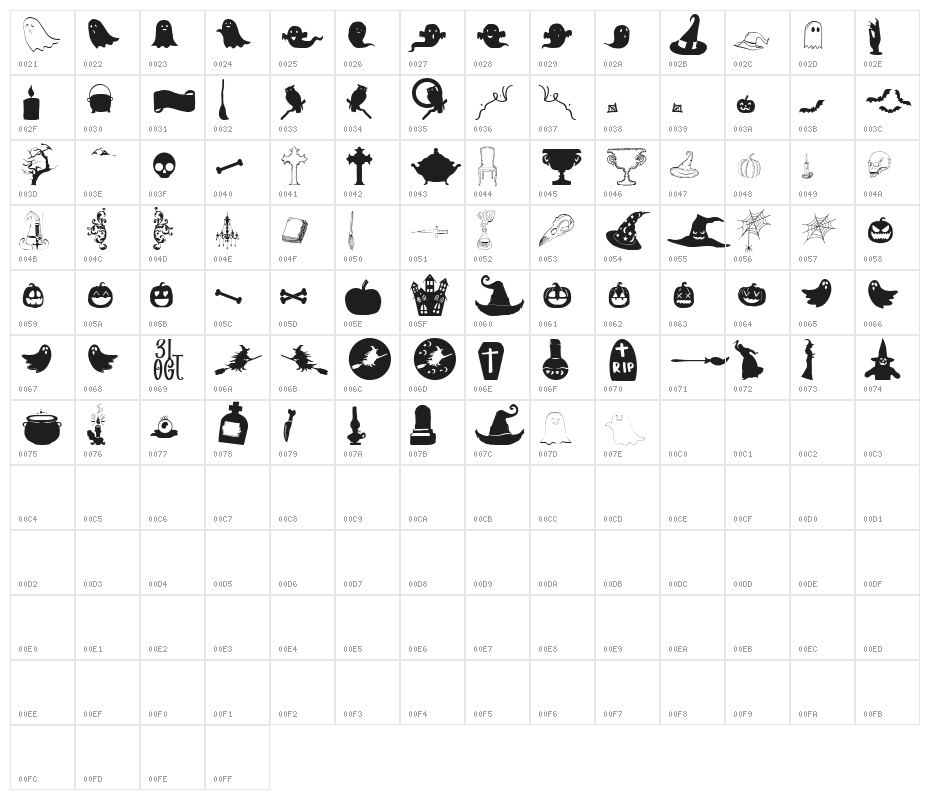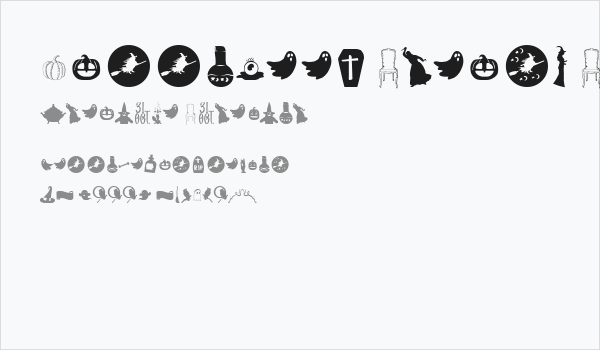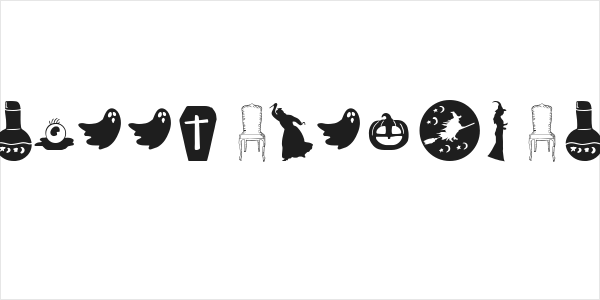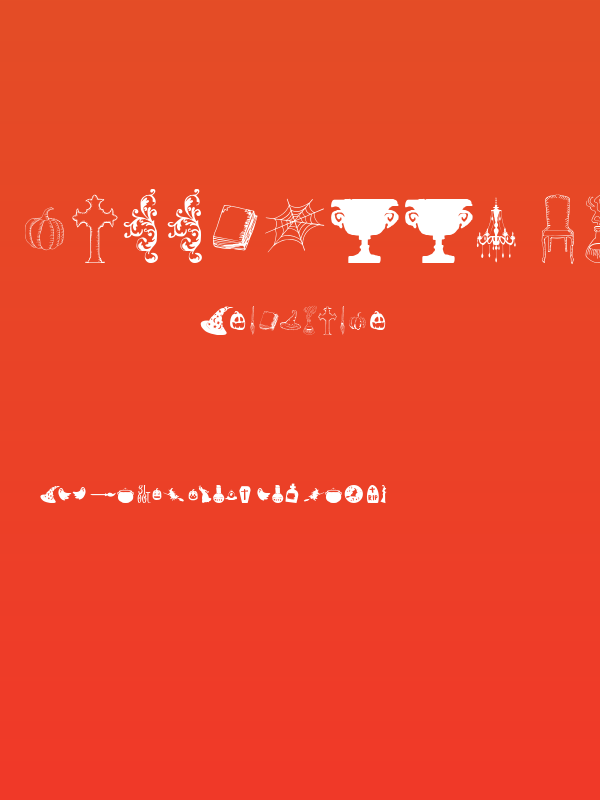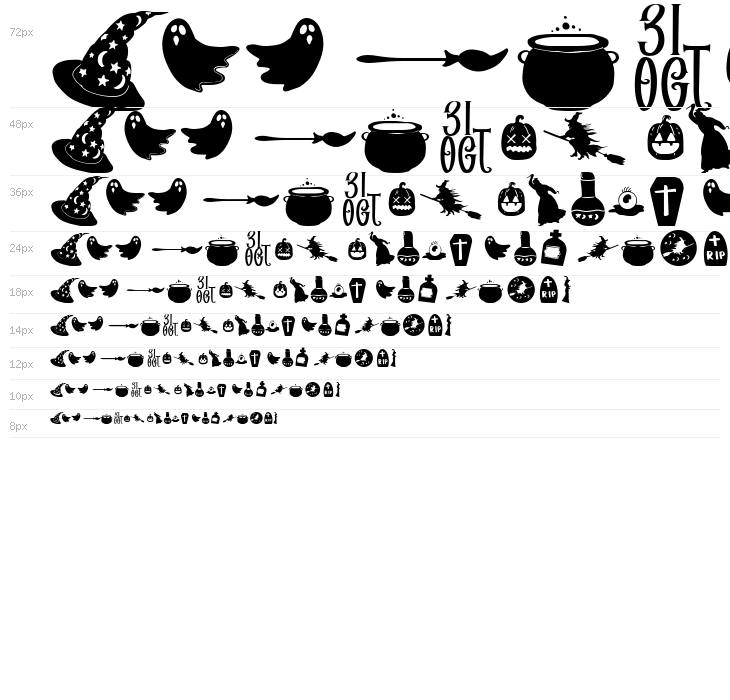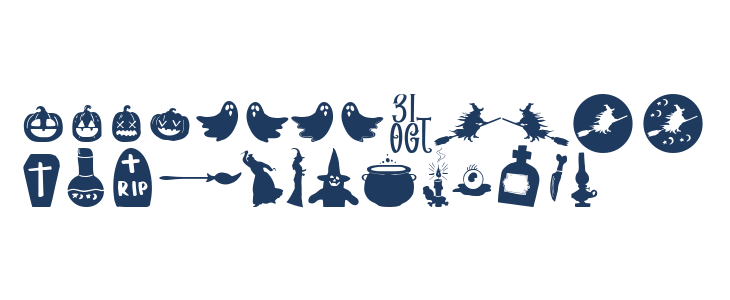
Halloween Dreams Doodles Font
Halloween Dreams Doodles Description
A decorative dingbat font featuring a variety of Halloween-themed doodles, including witches, ghosts, pumpkins, cauldrons, gravestones, owls, hats, and other spooky icons. The glyphs are a mix of solid silhouettes and outlined illustrations, with playful and whimsical styling.
| Overall Style | Decorative, Playful, Whimsical |
| Use Case | Icons, Decorative elements, Themed graphics |
| Proposed Projects | Party invitations, event flyers, seasonal decorations, social media graphics, scrapbooking, and children's crafts. |